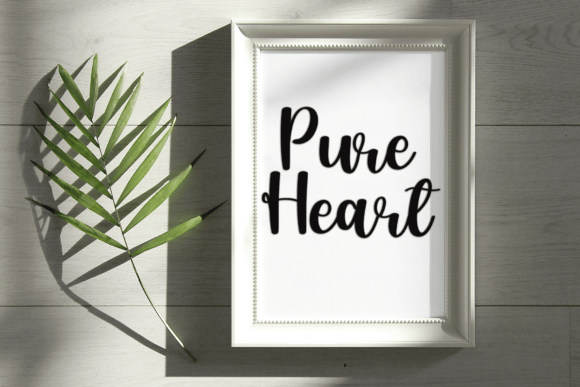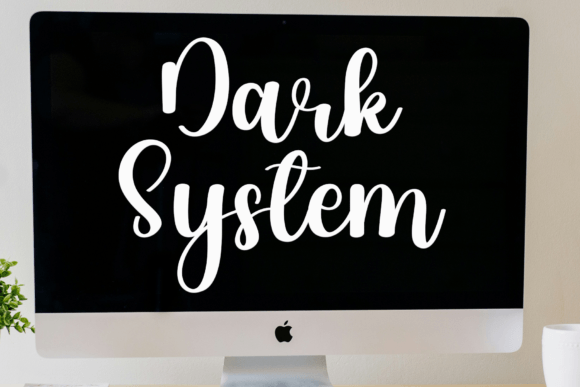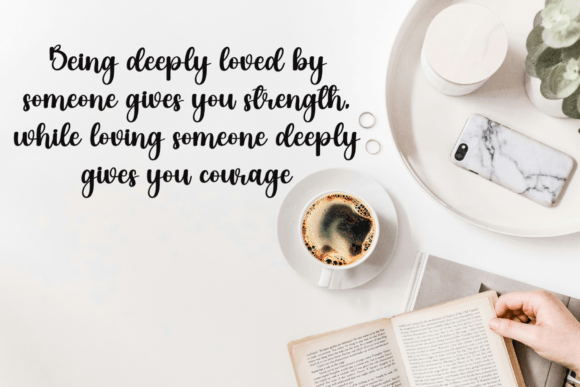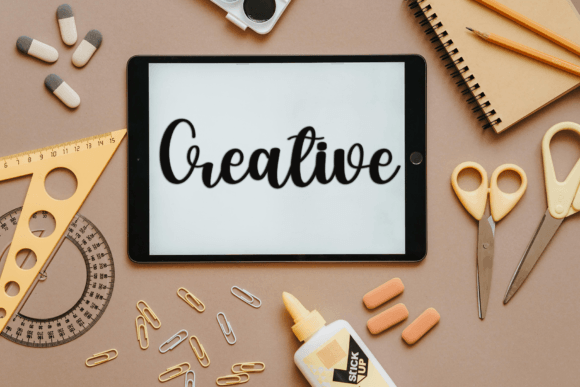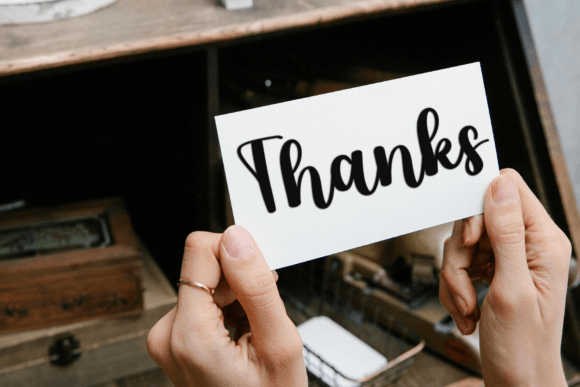
Springing into Creativity with the Perfect Font
As a designer, have you ever been brainstorming a new project and suddenly, a burst of inspiration strikes you? Perhaps it’s the perfect font that adds a touch of magic to your design. For me, that moment came when I stumbled upon the Creative Easter Font.
This elegant script font is not just a pretty face; it’s a versatile tool that can elevate any design. Whether it’s a wedding invitation, a thank you card, or a logo, the Creative Easter Font adds a handwritten touch that’s both charming and sophisticated. Its value lies in its ability to add a personal and emotional connection to your designs, making it a must-have for any designer looking to create something truly special.
With its elegant curves and refined lines, the Creative Easter Font is the perfect addition to any design project. Let’s take a closer look at this beautiful font and explore its possibilities.
Creative Easter Font Key Features
- Unique Characteristics: Hand-drawn Easter egg-inspired design, 128 glyphs, multilingual support, and customizable colors.
- Language Support: Supports 100+ languages, including Latin, Cyrillic, Greek, and more.
- Font Style: Script, Casual, and Whimsical, making it perfect for Easter-themed designs, invitations, and greeting cards.
Designer Review: Creative Easter Font
Overall, I think the Creative Easter Font has some great qualities that make it a nice addition to any Easter-themed project. ✨ The font is playful and whimsical, perfect for adding a touch of fun and personality to your designs. The varied weights and styles allow for some flexibility in how you use it.
- The font is well-suited for titles and headings, adding a pop of color and energy to your design.
- The varied weights and styles make it easy to create visual interest and hierarchy in your design.
- The font is easy to read, even at smaller sizes.
However, there are some limitations to keep in mind. ⚠️ The font may be a bit too loud or overpowering for more subdued designs. Additionally, the font is not suitable for body text, as it can be difficult to read at longer lengths.
Overall, I think the Creative Easter Font is a great choice for designers looking to add some Easter-themed flair to their projects. While it may not be suitable for all types of projects, it’s a great option for titles, headings, and other design elements where a playful touch is needed.
Use the Creative Easter Font in combination with other Easter-themed elements, such as images and graphics, to create a cohesive design.
Experiment with different font sizes and colors to add visual interest to your design.
Use the font to create a consistent brand identity for your Easter-themed designs.
Easter invitations and cards
Easter-themed banners and posters
Easter illustrations and graphics
Easter presentations and documents
Q: Is the Creative Easter Font compatible with accessibility features?
Yes, the Creative Easter Font is designed to be accessible and meets the Web Content Accessibility Guidelines (WCAG 2.1). The font includes features such as clear letterforms, sufficient contrast, and legibility at various font sizes. This ensures that the font is usable by people with visual impairments and other disabilities.